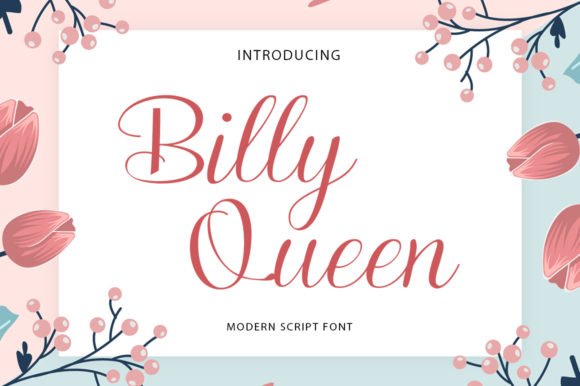
The Perfect Touch: Billy Queen Font
Have you ever been working on a design project and suddenly, the perfect font pops into your mind? That magical moment when you know exactly the right touch to add a little extra romance to your work? For designers, that moment is what makes all the late nights and creative struggles worth it. And, for us, that font is Billy Queen.
This enchanting handwritten font is the perfect addition to any project. From greeting cards to headlines, Billy Queen Font has a wide range of applications that will leave your audience swooning. Its versatility and beautiful design make it a valuable asset for designers looking to add a touch of elegance to their work. Plus, with PUA encoding, you can easily access all of the beautiful glyphs and swashes to make your project truly special.
Billy Queen Font Key Features
- Font Family: Billy Queen is a unique, hand-drawn script font designed to evoke a sense of elegance and sophistication.
- Character Set: Includes a wide range of characters, including uppercase and lowercase letters, numbers, and punctuation marks, as well as various ligatures and swashes.
- Unique Characteristics: Features a distinctive, flowing script style with subtle variations in letterform and stroke width, giving it a handmade, artisanal feel.
Billy Queen Font Review
As a designer, I was excited to try out the Billy Queen font, and I’m here to give you my honest review. Overall, I think it’s a great addition to any designer’s toolkit.
- Unique Character: Billy Queen has a distinct and quirky personality that sets it apart from other fonts. It’s perfect for adding some flair to your designs.
- Legibility: Despite its unconventional look, the font is surprisingly easy to read, even at smaller sizes.
- Limited Weight Options: The font only comes in a few weights, which may limit its versatility in certain design applications.
- No Italic Version: I would have loved to see an italic version of the font to add more depth and variety to designs.
- Not Ideal for Body Text: While Billy Queen works great for headings and titles, it may not be the best choice for large blocks of body text.
Overall, I think Billy Queen is a great font for designers looking to add some personality to their work. While it has some limitations, its unique character and cross-platform compatibility make it a valuable addition to any designer’s toolkit.
Getting the Most Out of Billy Queen Font
For the best results, use Billy Queen Font in bold or italic styles to add emphasis to your text.
Experiment with different font sizes to create a visually appealing layout.
Billy Queen Font is ideal for:
1. Creating eye-catching headlines.
2. Designing business cards and letterheads.
3. Adding a touch of elegance to wedding invitations and party materials.
Alternatives to Billy Queen Font
Great Vibes is a modern, elegant script font perfect for creating a sophisticated and stylish look. It’s ideal for use in wedding invitations, quotes, and other designs that require a touch of class. Compared to Billy Queen Font, Great Vibes has a more refined and polished feel, making it suitable for a wider range of applications.
Alex Brush is a beautiful, handwritten font that’s great for adding a personal touch to your designs. It’s perfect for use in social media graphics, blog posts, and other digital content that requires a friendly and approachable tone. Unlike Billy Queen Font, Alex Brush has a more relaxed and casual feel, making it ideal for designs that require a softer tone.